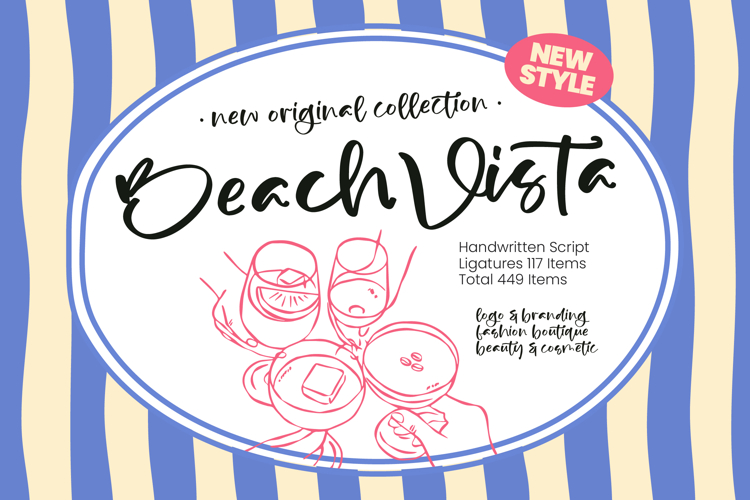
Beach Vista - Handwritten Script
Elevate your creative vision with a touch of organic elegance through the stunning Beach Vista - Handwritten Script. This typeface captures a relaxed yet refined aesthetic, characterized by its high-contrast strokes and authentic brush-like fluidity. By balancing a casual spirit with professional craftsmanship, it provides a unique visual identity that feels both and high-end, making it an essential asset for designers seeking a human touch in their digital compositions.
Transform your brand presence with unparalleled sophistication by applying this font to your most prestigious projects. Beach Vista - Handwritten Script is the ideal choice for luxury branding, fashion boutique designs, and high-end beauty and cosmetic packaging. Its flowing lines and graceful curves are perfect for creating memorable logos, impactful headlines, and chic editorial layouts that demand immediate attention from a discerning, style-conscious audience.
Reach a worldwide audience with professional-grade versatility and robust technical features. With its extensive multilingual support, Beach Vista - Handwritten Script adapts seamlessly across global markets, making it incredibly versatile for international projects. Boasting 117 custom ligatures and over 449 total glyphs, this font ensures a natural handwriting flow and seamless character transitions that remain consistent and legible across various digital and print platforms.